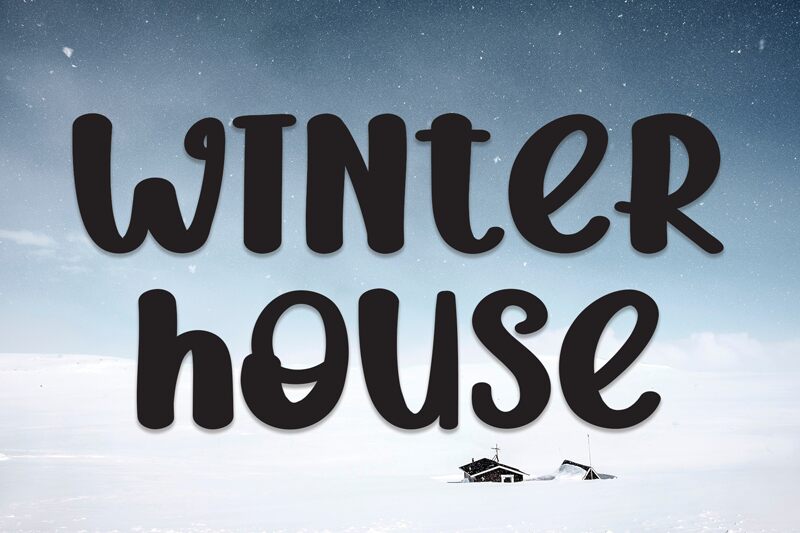
Winter House
Winter House is a delightfully smooth and brush-like font that oozes warmth and playfulness. With its bold strokes and friendly aesthetic, this font strikes the perfect balance between elegance and whimsy.
The handwritten quality lends an inviting, personal touch, making it ideal for a range of design applications that call for a touch of charm - from wedding invitations to greeting cards and beyond. Whether you're crafting a sweet message or infusing a design with a charming, homespun feel, Winter House's bold yet graceful presence is sure to captivate.
This font's versatility and visual appeal make it a must-have for designers seeking to add a touch of endearing character to their creations.